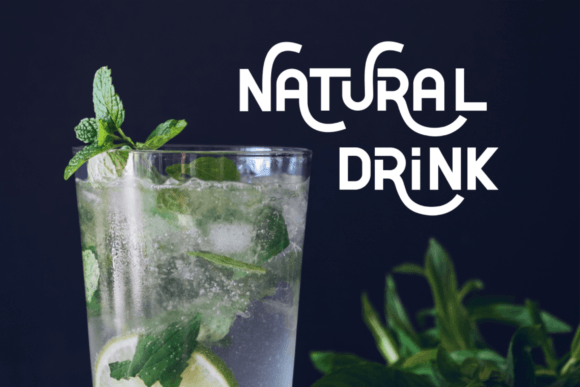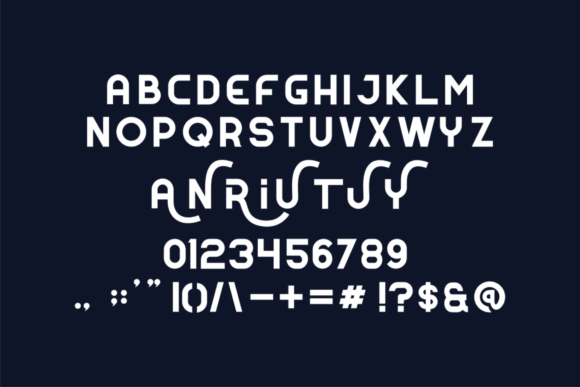
Introduction to Deaturiner Font
Have you ever been on a creative roll, pouring your heart and soul into a design project, only to be held back by the perfect font? That’s where the Deaturiner Font comes in – a modern, bold, and authentic sans serif font that’s about to revolutionize your design workflow.
As a designer, you know the importance of having a reliable design resource that can elevate your creative project to the next level. With Deaturiner Font, you’ll have access to a high-quality font that’s perfect for any branding project, from logos to t-shirt printing and beyond. Plus, its transparent background makes it a versatile choice for any design context.
What sets Deaturiner Font apart is its unique blend of style and functionality, making it a valuable addition to any designer’s toolkit. And the best part? It’s available for free download, so you can start using it right away and take your designs to the next level.
Key Features of Deaturiner Font
- Unique, modern design ideal for creative projects and design resources
- High-quality font with transparent background for seamless integration
- Perfect for use in logos, branding, and other design elements requiring a modern and sleek aesthetic
Honest Review: Deaturiner Font
I recently stumbled upon the Deaturiner Font and was excited to give it a try for my creative project. Overall, I found it to be a solid addition to my design resource library.
What works well: ✨ I appreciate the high quality of the font, which is crisp and clear even at smaller sizes. The font is also quite versatile and can be used in a variety of design contexts, from headings to body text.
However, I did encounter a few limitations: ⚠️ The font only comes in a few weights, which might limit its use in more complex designs. Additionally, the font doesn’t include any ornaments or icons, which could be a drawback for designers who want to add some visual interest to their project.
Overall, I’d say the Deaturiner Font is a great option for designers who want a high-quality, versatile font for their creative project. While it has some limitations, its strengths make it a valuable addition to any design resource library.
Introduction to Deaturiner Font
The Deaturiner Font is a high-quality design resource perfect for creative projects. Its unique style and transparent background make it an ideal choice for designers looking to add a touch of elegance to their work.
Tips for Getting the Most Out of Deaturiner Font
Use the Deaturiner Font in combination with other design elements to create a cohesive and visually appealing design. Experiment with different font sizes and styles to add depth to your work.
Common Use Cases for Deaturiner Font
The Deaturiner Font is perfect for use in wedding invitations, business cards, and other creative projects where a touch of elegance is desired. Its transparent background makes it easy to use in designs with complex backgrounds.